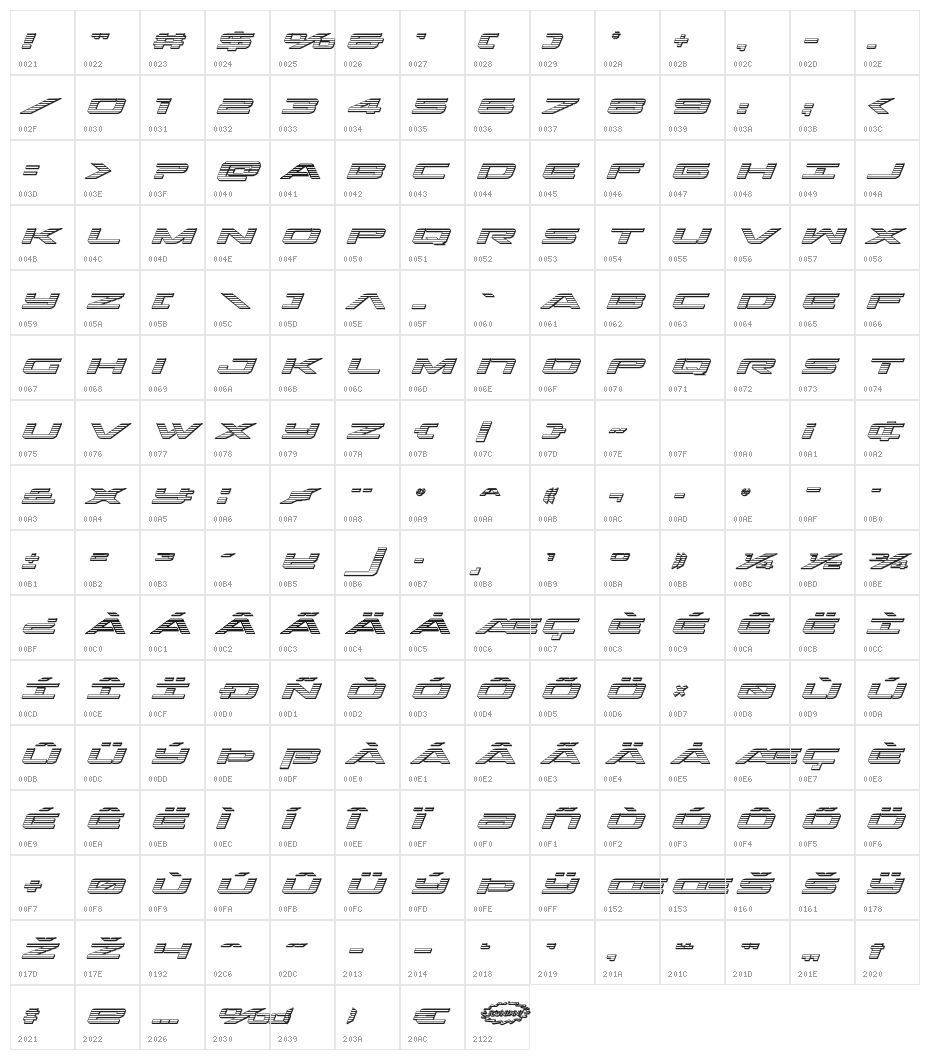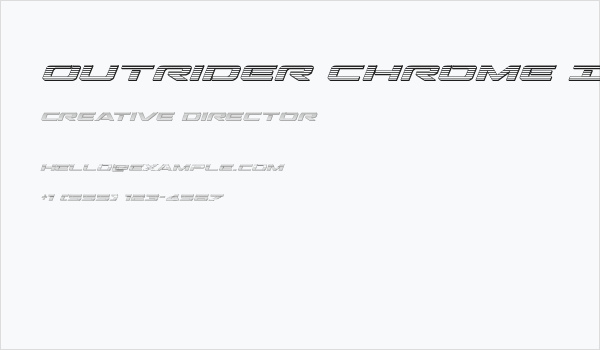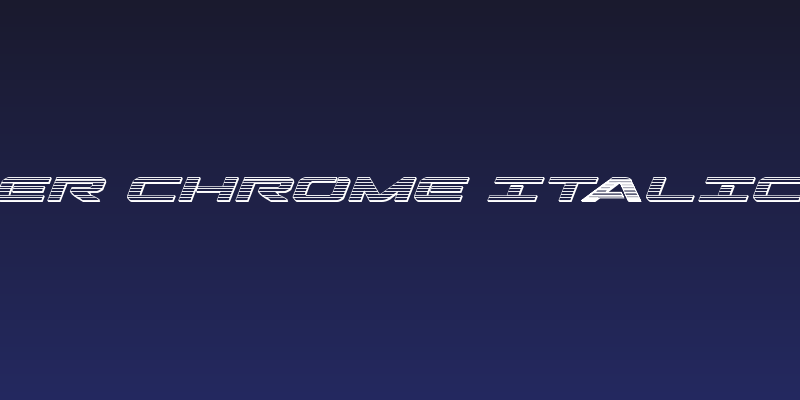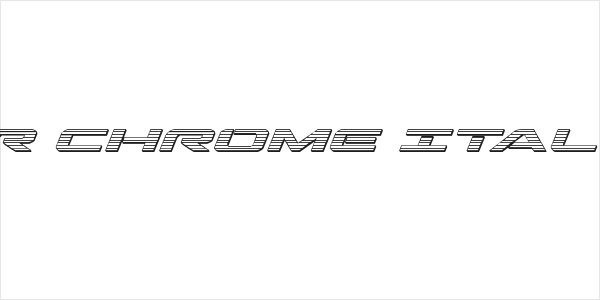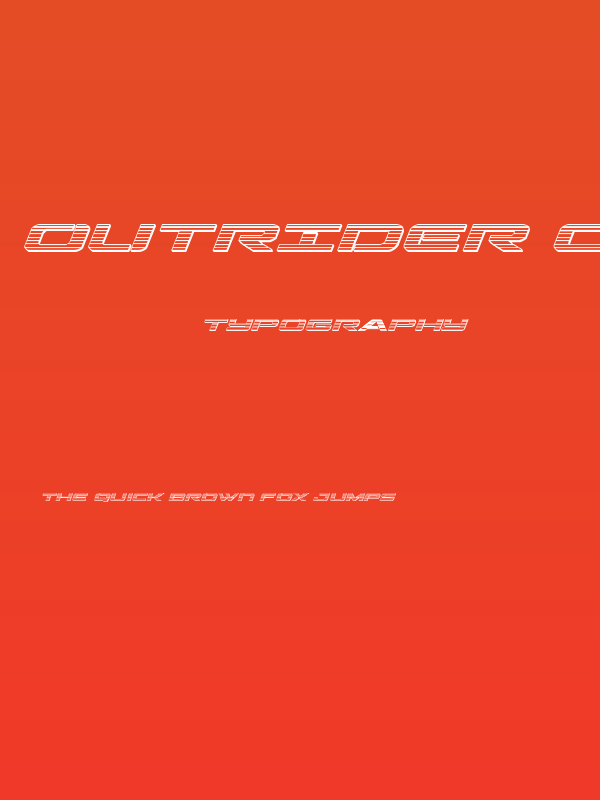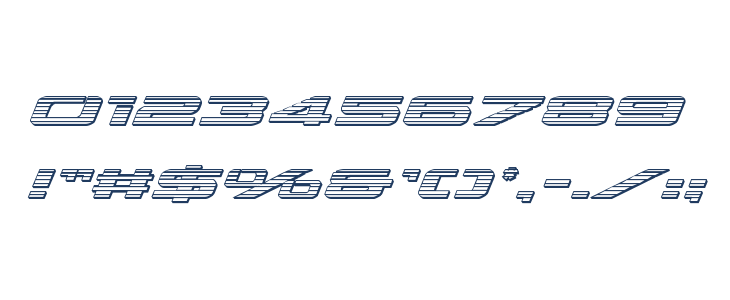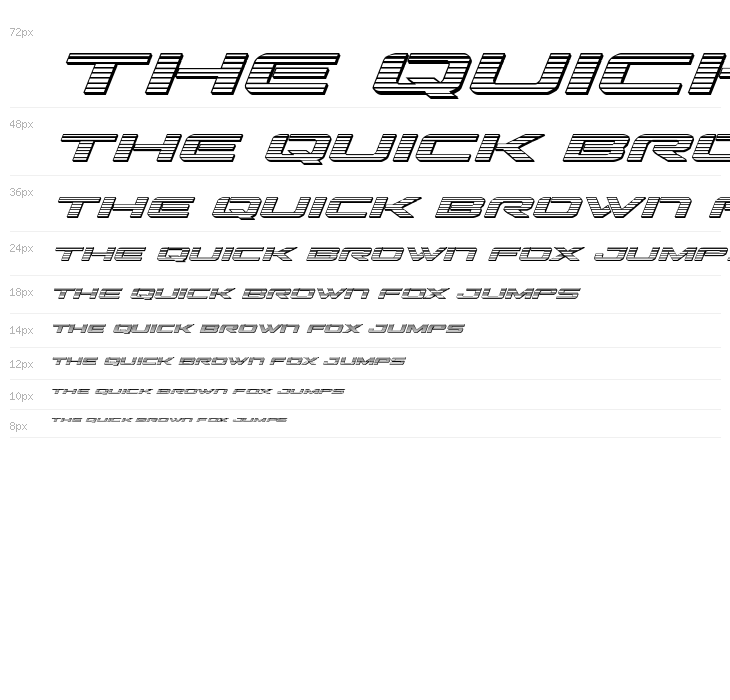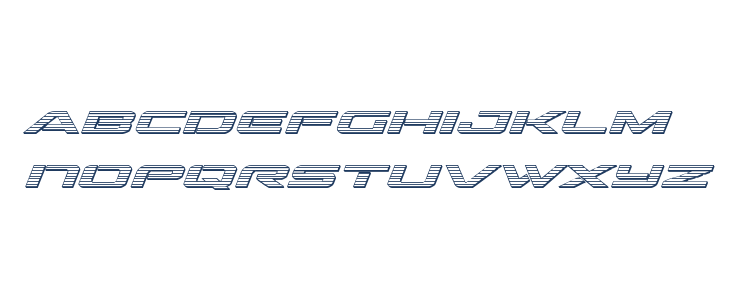
Outrider Chrome Italic Italic Font
Outrider Chrome Italic Italic Description
This font features a futuristic and dynamic design with a distinct italic slant, giving it a sense of motion and speed. The characters are constructed with multiple parallel lines, creating a chrome-like appearance that adds depth and dimension. This design choice gives the font a high-tech, mechanical feel, suitable for projects that require a modern and edgy look. The uppercase and lowercase letters maintain a consistent style, while the numerals and special characters complement the overall aesthetic. The font's unique structure makes it stand out, making it ideal for attention-grabbing headlines or branding.